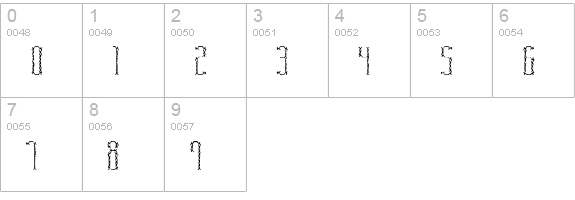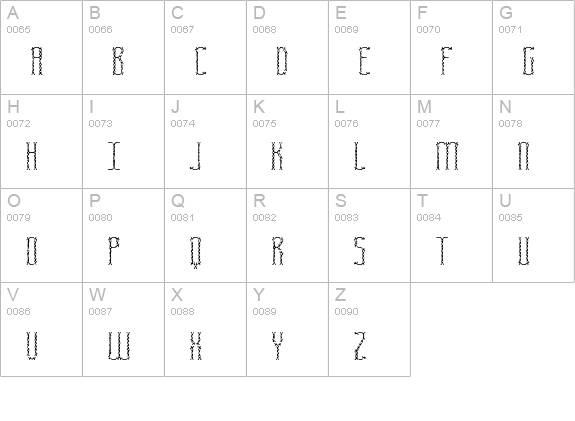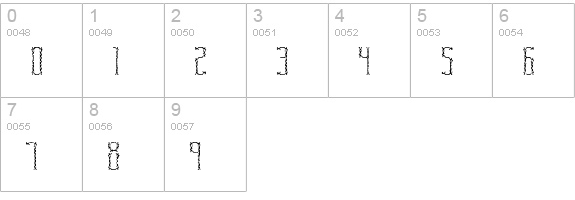
Fascii Cross BRK Font Details
Fascii Cross BRK is a unique and eye-catching font that combines elements of both classic and modern typography. With its distinct cross-like design, this font is perfect for adding a touch of elegance and sophistication to any project. The sharp edges and clean lines of Fascii Cross BRK make it ideal for creating bold headlines, stylish logos, and attention-grabbing designs. What makes Fascii Cross BRK even more appealing is that it is available for free download at FontsMarket.com. This means that you can easily access and use this stunning font in your personal or commercial projects without any cost. Whether you are a graphic designer, web developer, or just someone looking to add a touch of flair to your creations, Fascii Cross BRK is a versatile and visually striking font that is sure to make a lasting impression. Download it today and elevate your designs with this striking typeface.